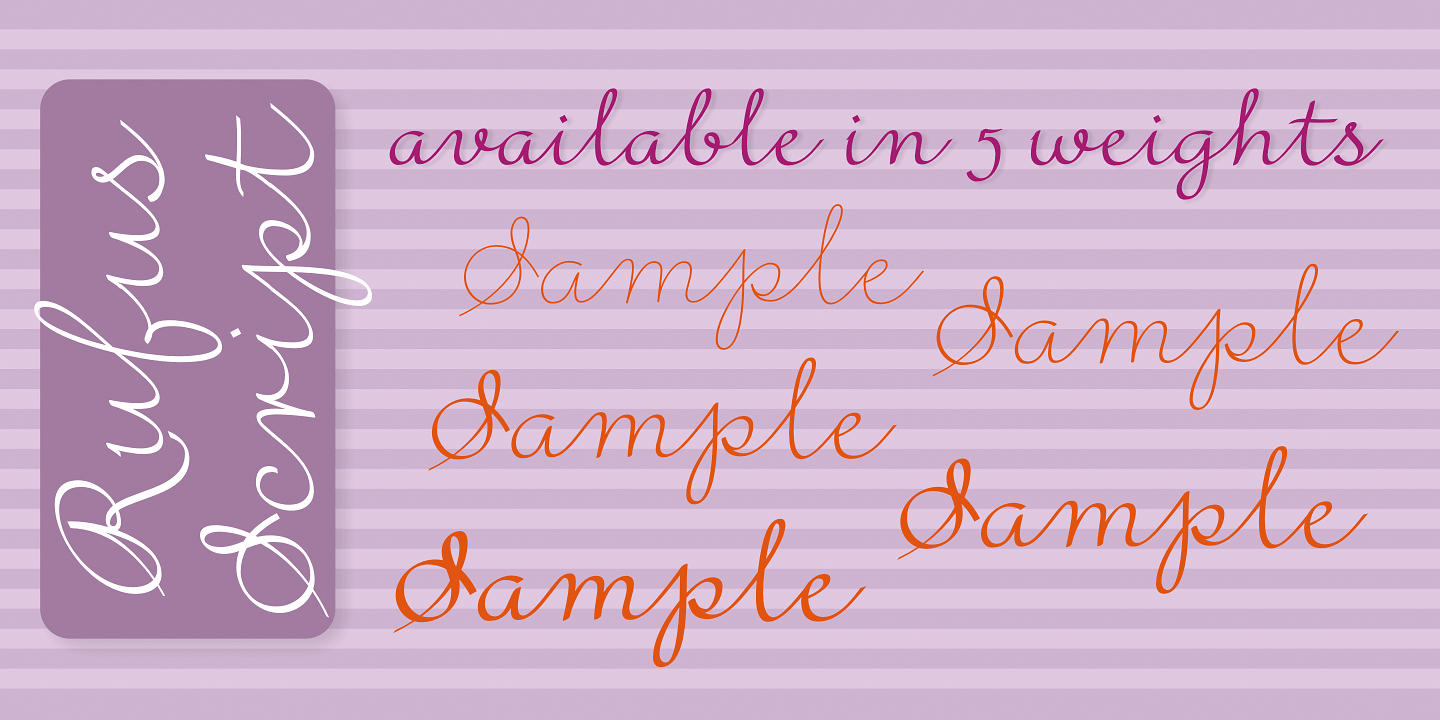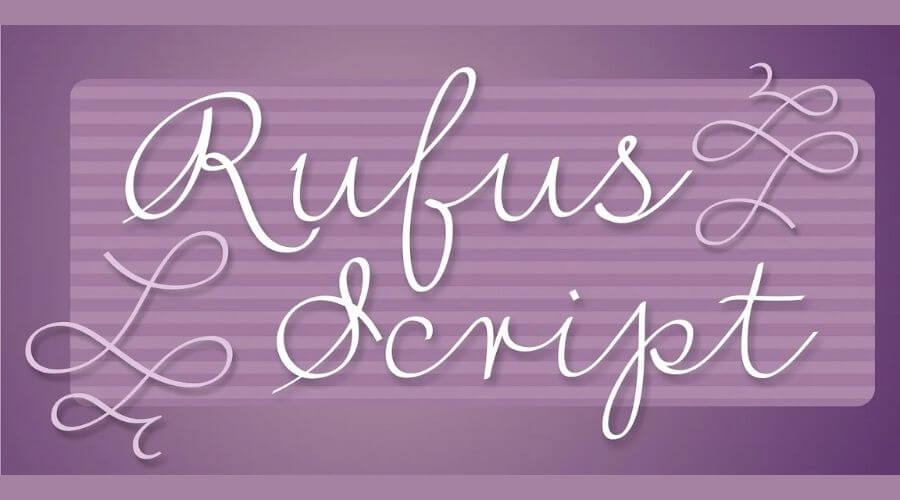
Rufus Script Font Free
Introducing Rufus Script Font! Rufus designed and shared with the aid of using Paweł Burgiel. Rufus Script Font is a linked script font stimulated with the aid of using Palmer’s technique of enterprise writing, conventional industrial lettering of 1900-1915. The Rufus Script’s own circle of relatives is available in 5 weights, with mechanically loaded contextual alternates. Character set comprises over 500 characters according to the font for a huge variety of Latin-primarily based totally language support. The font Includes proportional and tabular figures, embellishes, and famous recycling symbols used for packaging.
Rufus Script is high-quality for product packaging, ee-ebook covers, poster design, editorials, and greeting cards. May be additionally freely used for lengthy inscriptions because of its formal shape and introduced small irregularities simulate now no longer fully-educated hand.
| Style | Script. |
| Designer | Paweł Burgiel |